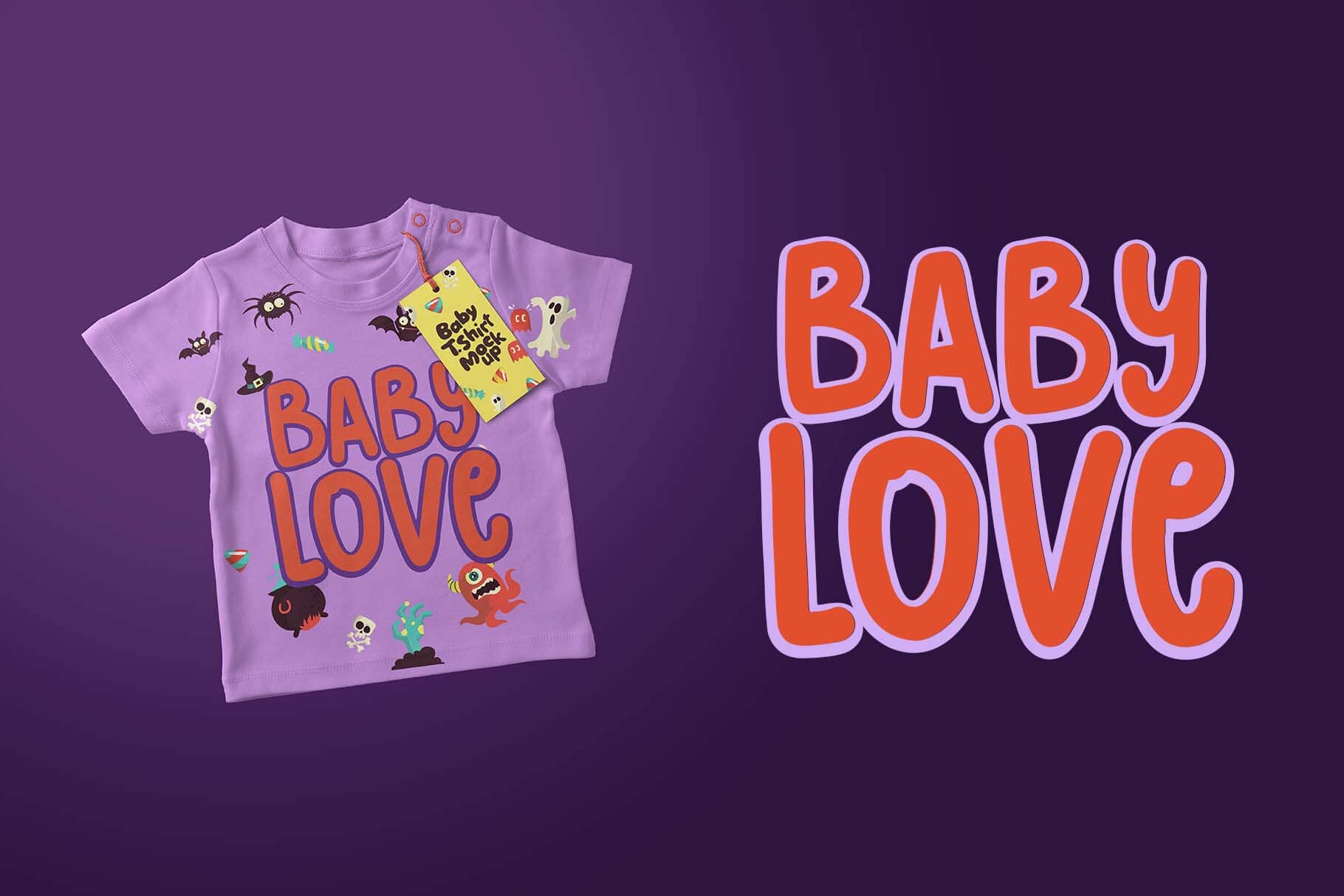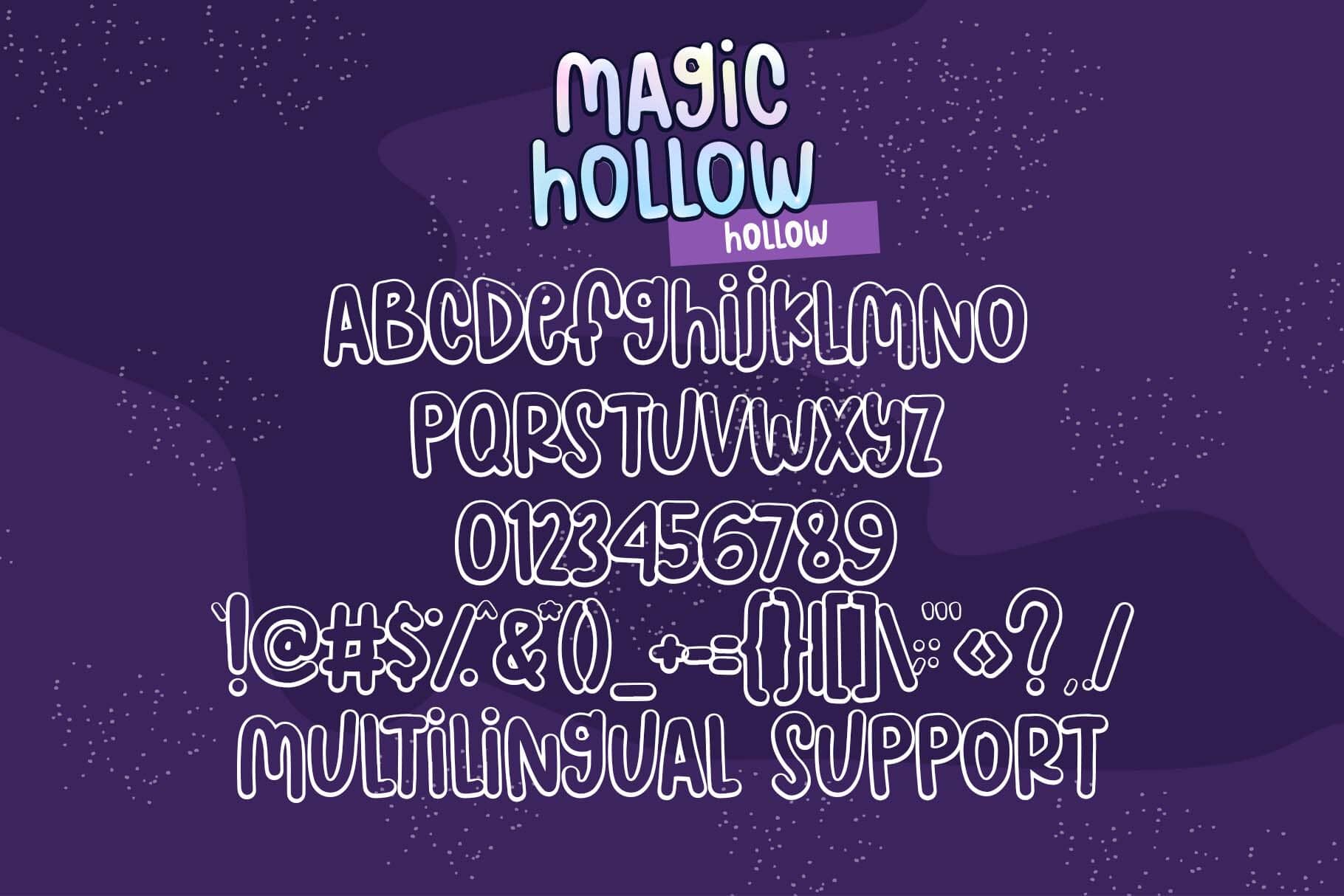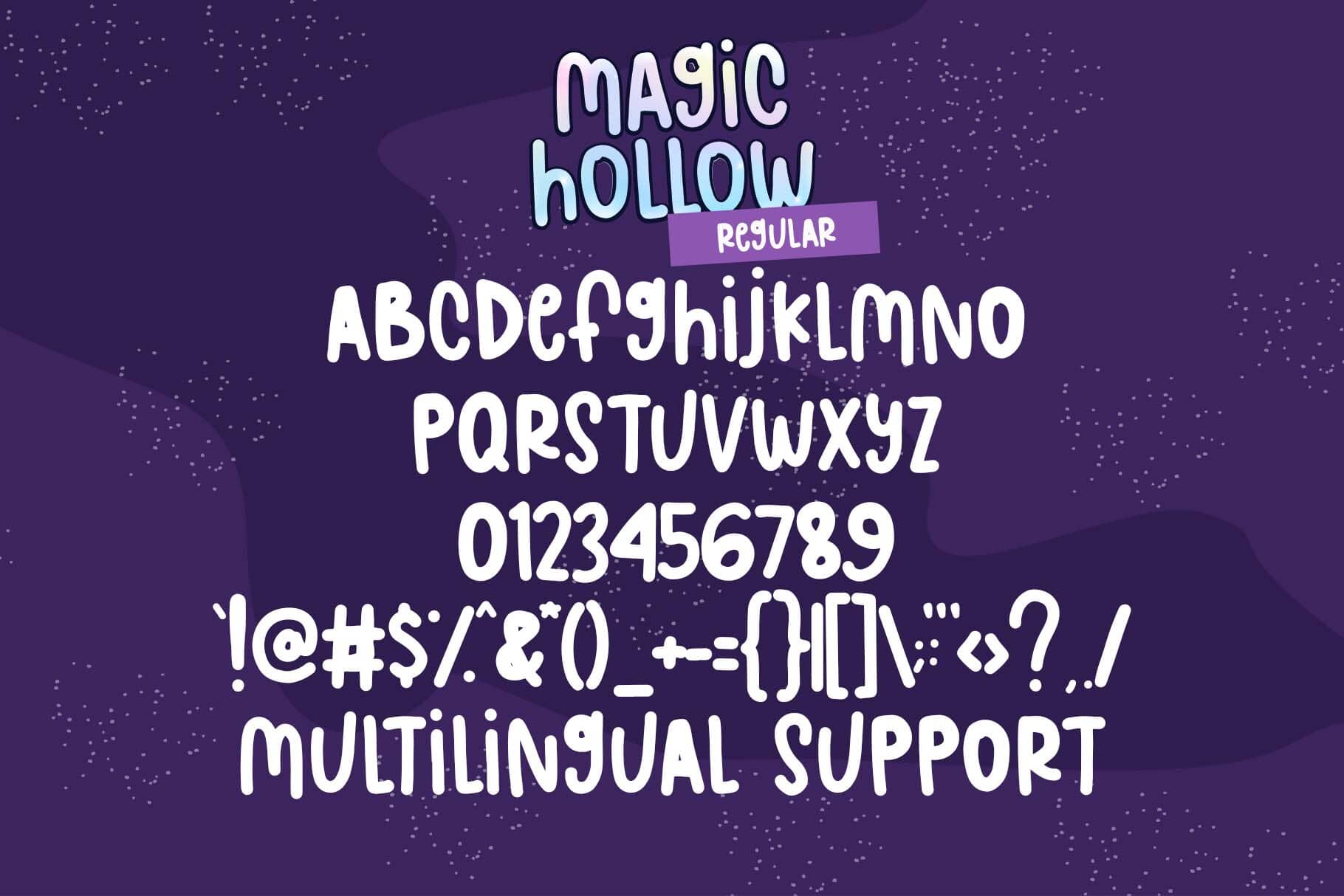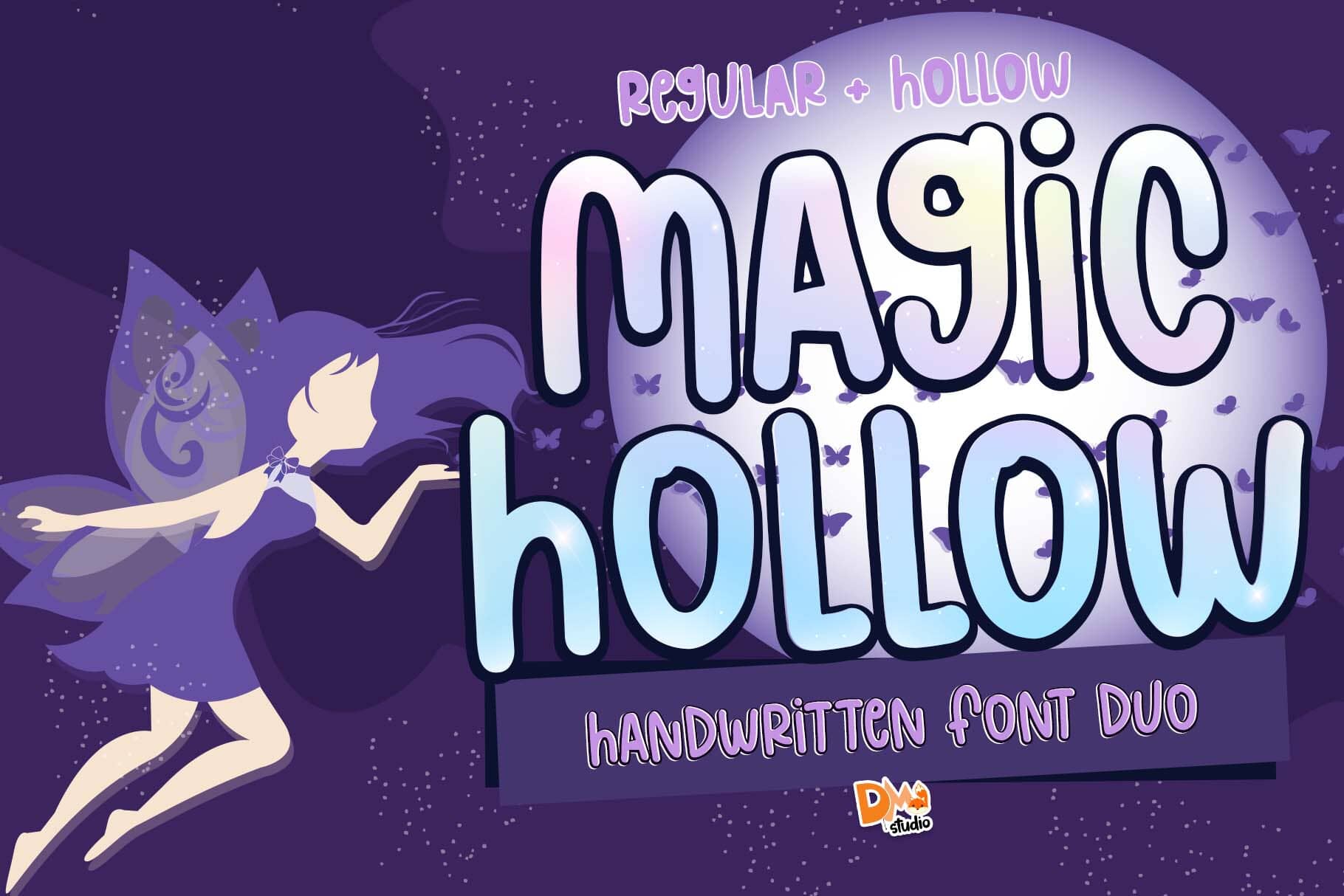
Magic Hollow Font β A Whimsical Typeface for Fantasy-Themed Designs
Unlock the mystical charm of your creative projects with the Magic Hollow font. This whimsical and enchanting typeface is designed to infuse your text with magic, fantasy, and visual intrigue. Whether you’re crafting spellbinding invitations, fantasy-themed book covers, or magical merchandise, Magic Hollow brings a captivating flair that sets your designs apart.
Perfect for Magical and Fantasy Creations
The Magic Hollow font captures the essence of mystery and wonder. Its decorative letterforms and intricate curves evoke a fairy-tale atmosphere, making it ideal for projects that require a touch of fantasy. From themed parties and events to magical branding elements, this font fits right in where creativity meets imagination.
Features and Flexibility
- Enchanting Design: Spellbinding characters with a hand-drawn, mystical feel
- Full Character Set: Includes uppercase, lowercase, punctuation, numerals, and symbols
- Multilingual Support: Expands your design reach across global projects